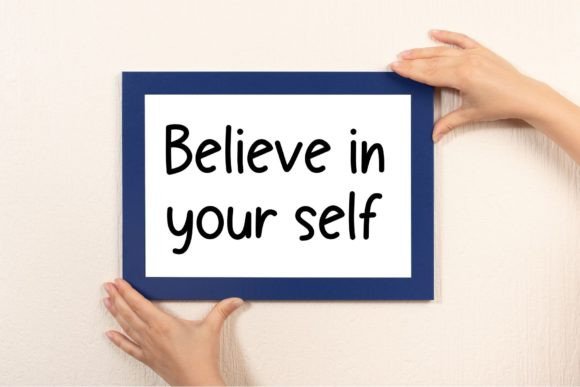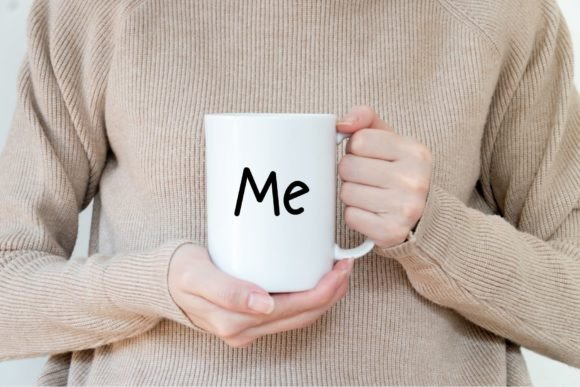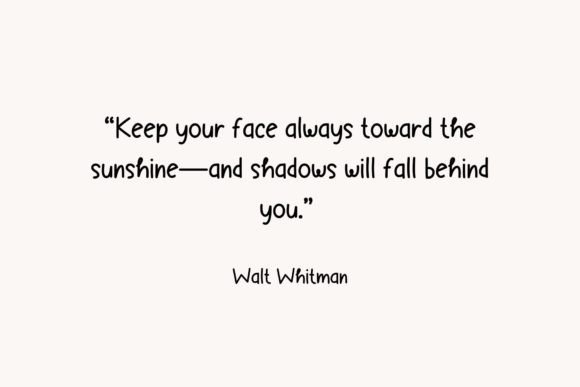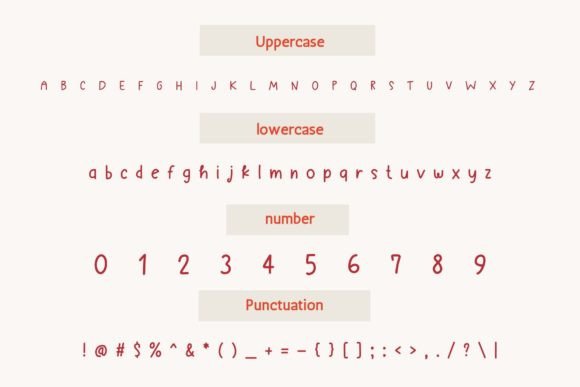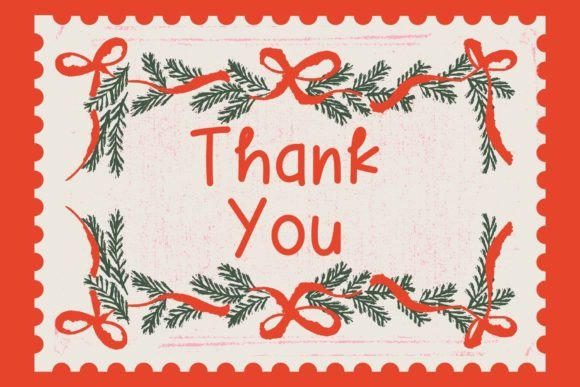
Introduction to Hungry Girls Font
Hungry Girls is a cute handwritten font.
It embodies playfulness and authenticity and is the perfect choice for all your favorite projects such as blog posts, logos, branding, ads, invitations, greeting cards, planners, photo albums, decorations, and much more Add it to any of your designs, and enjoy the results.
Key Features of Hungry Girls Font
Why Choose Hungry Girls Font?
Hungry Girls Font offers exceptional quality and versatility, making it a valuable addition to your design toolkit. Whether you’re creating for personal projects or commercial use, Hungry Girls Font delivers professional results.